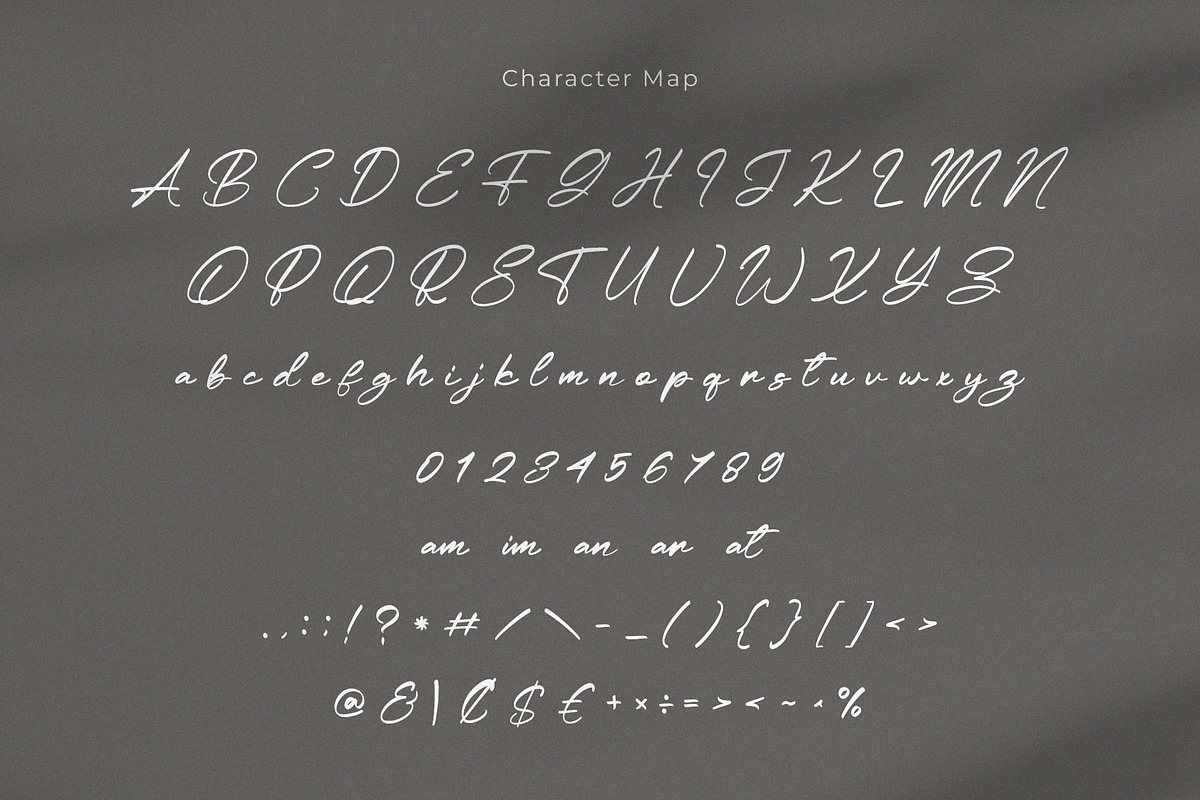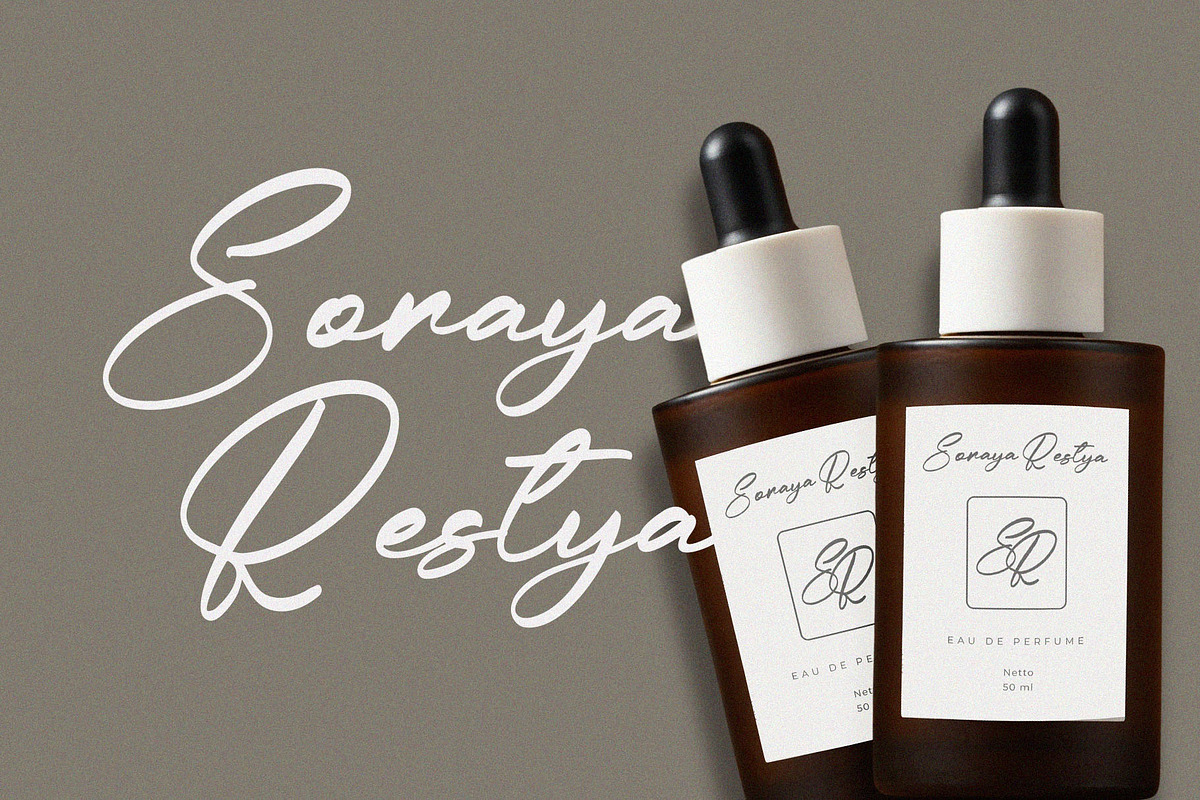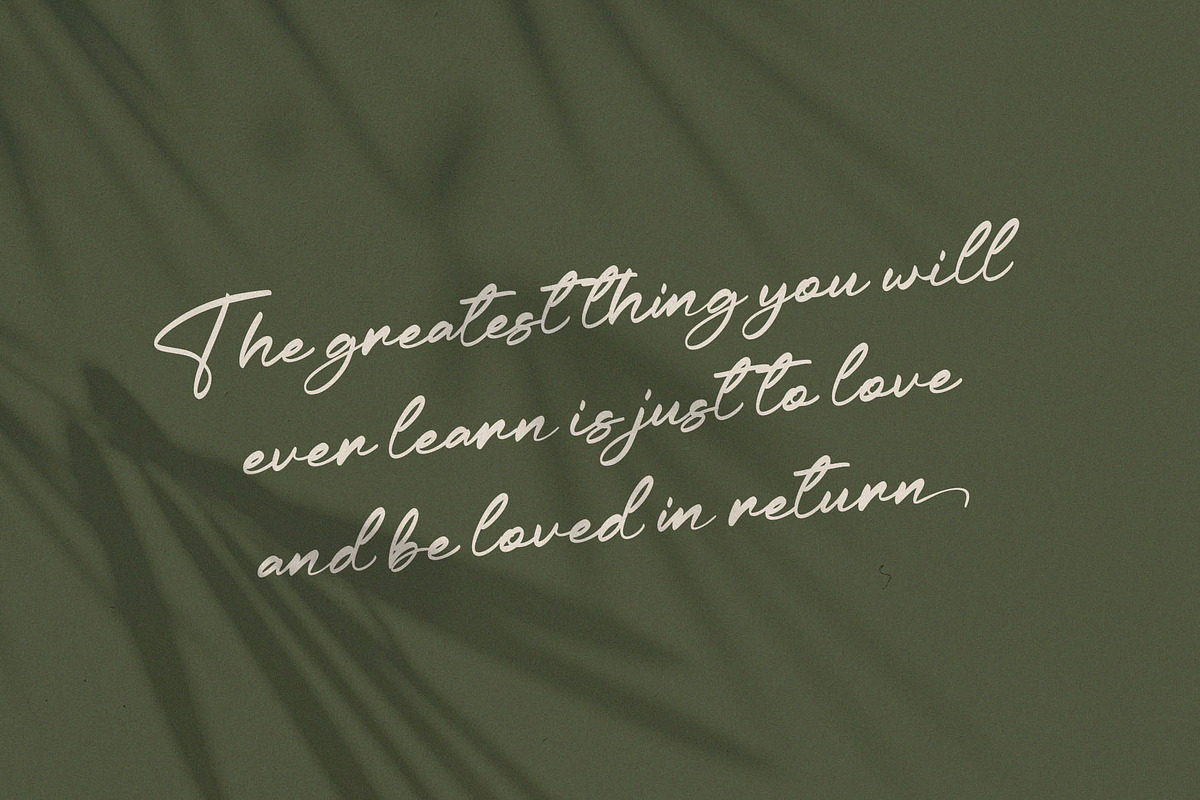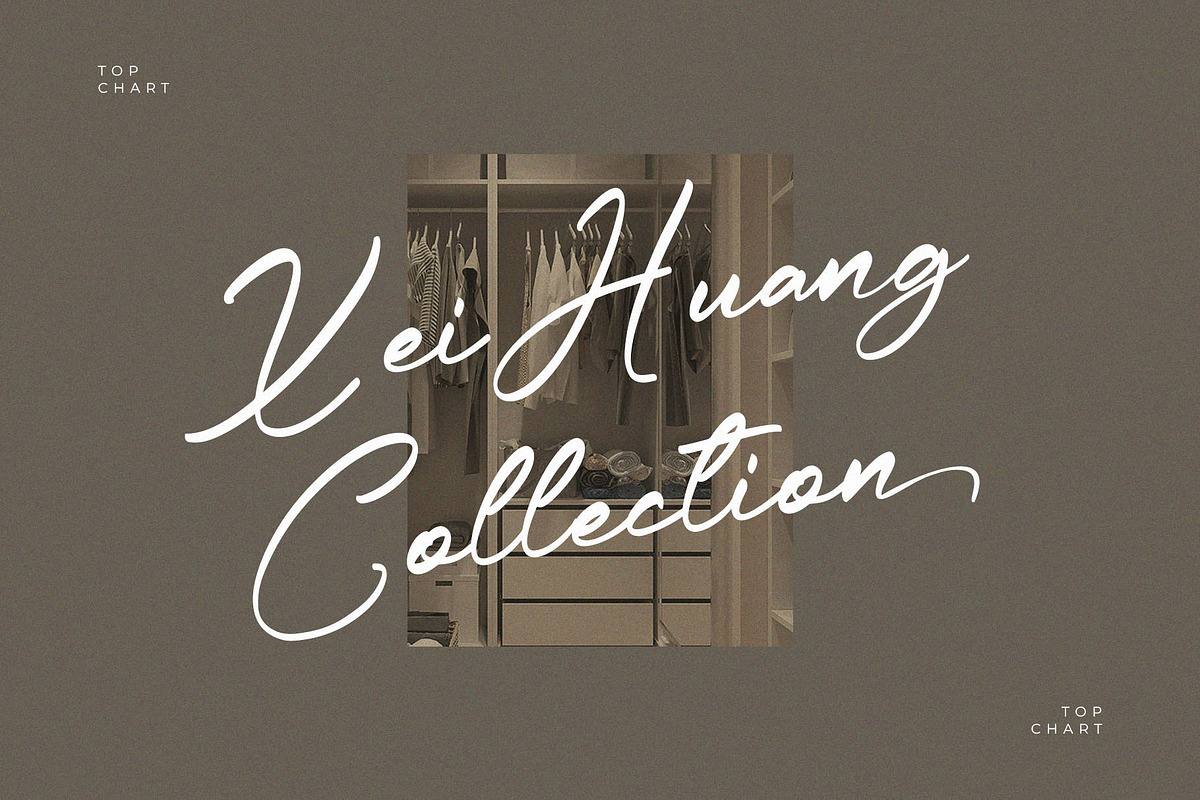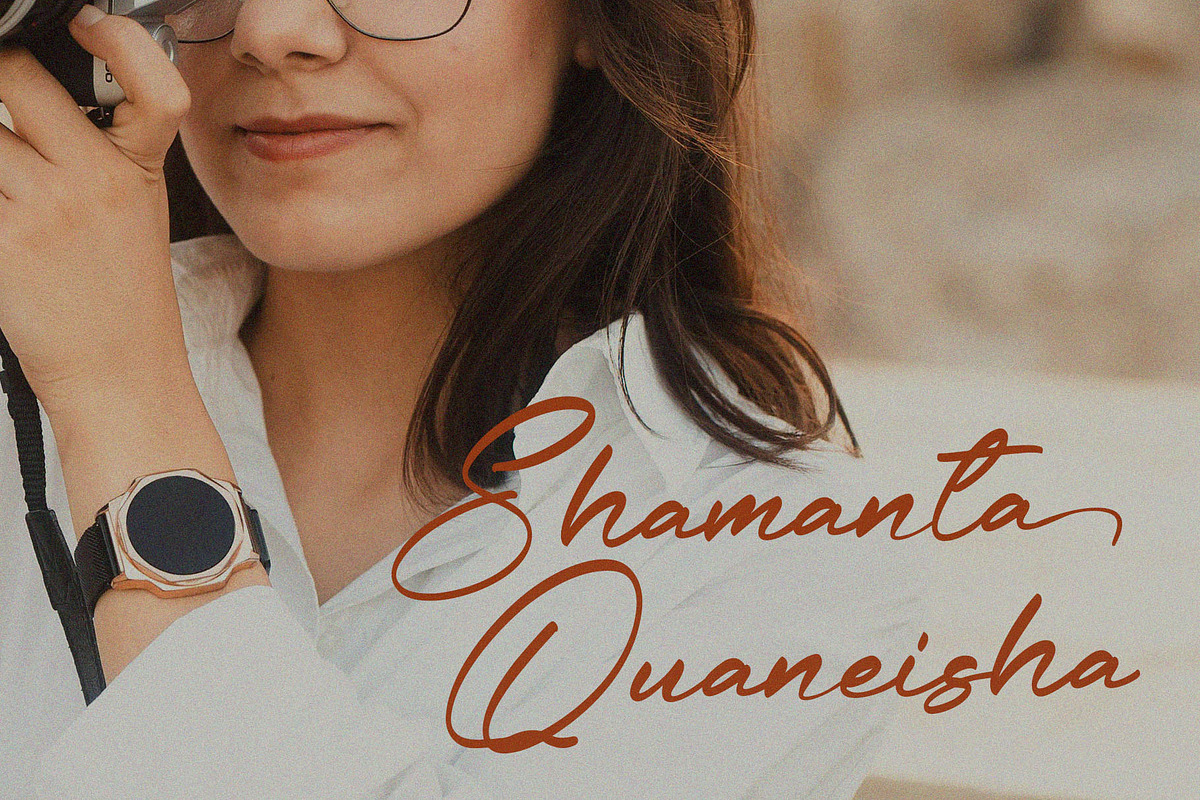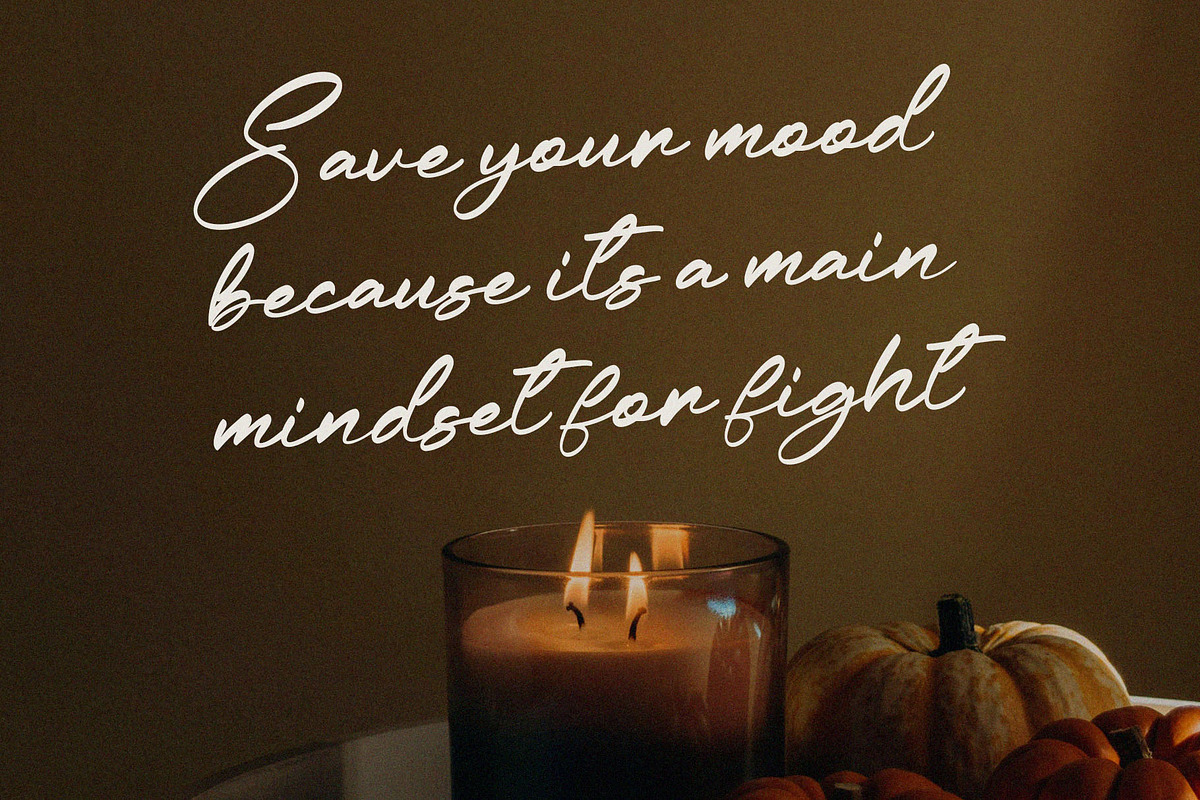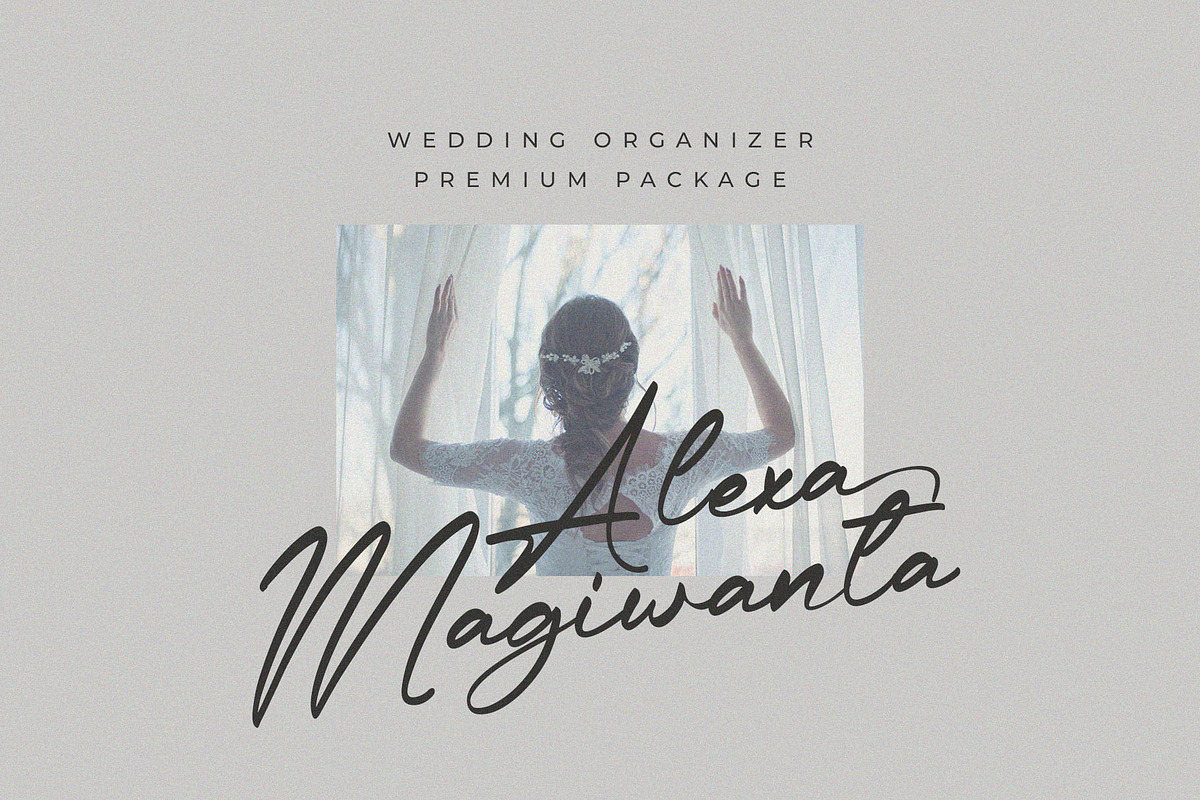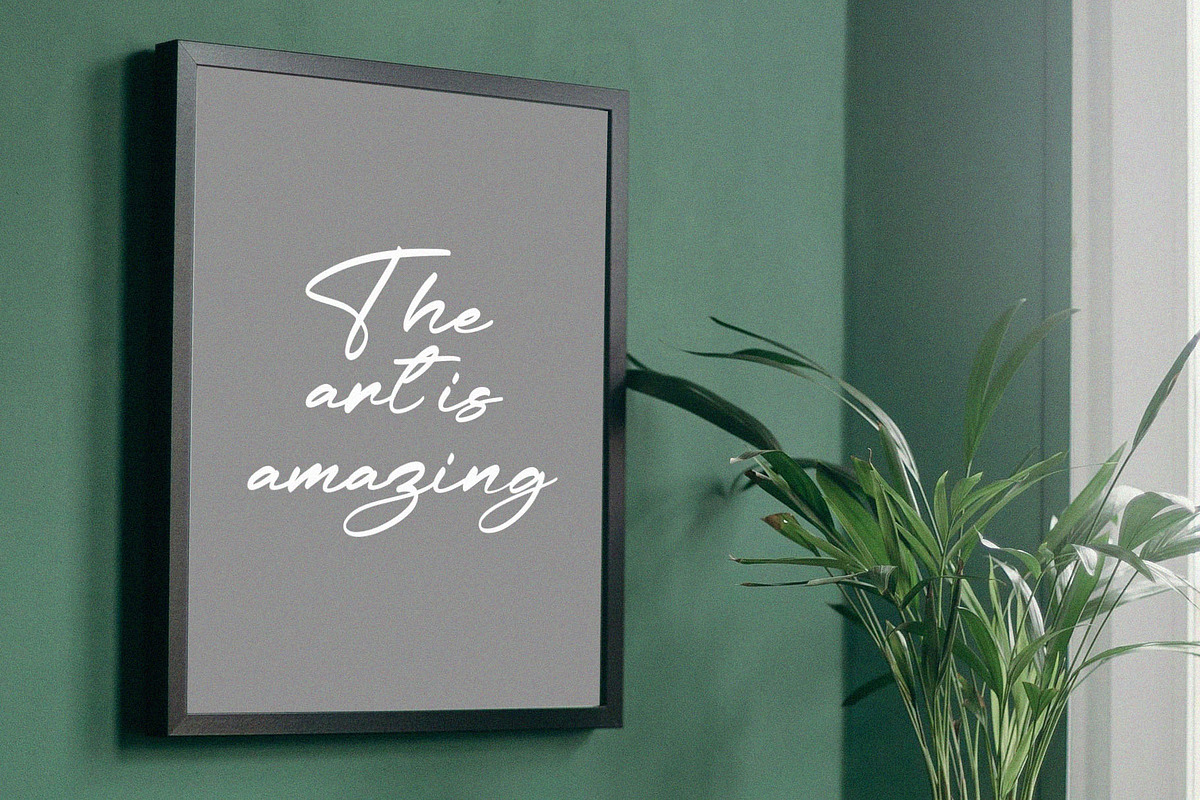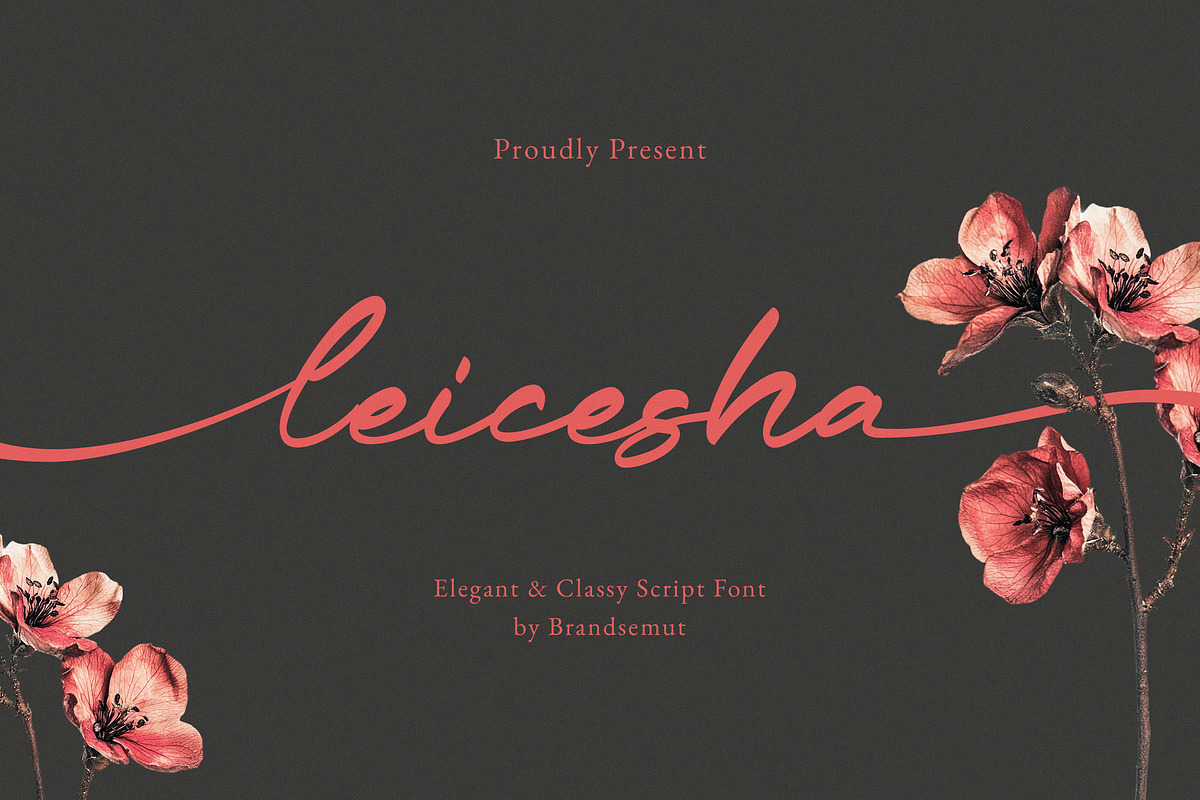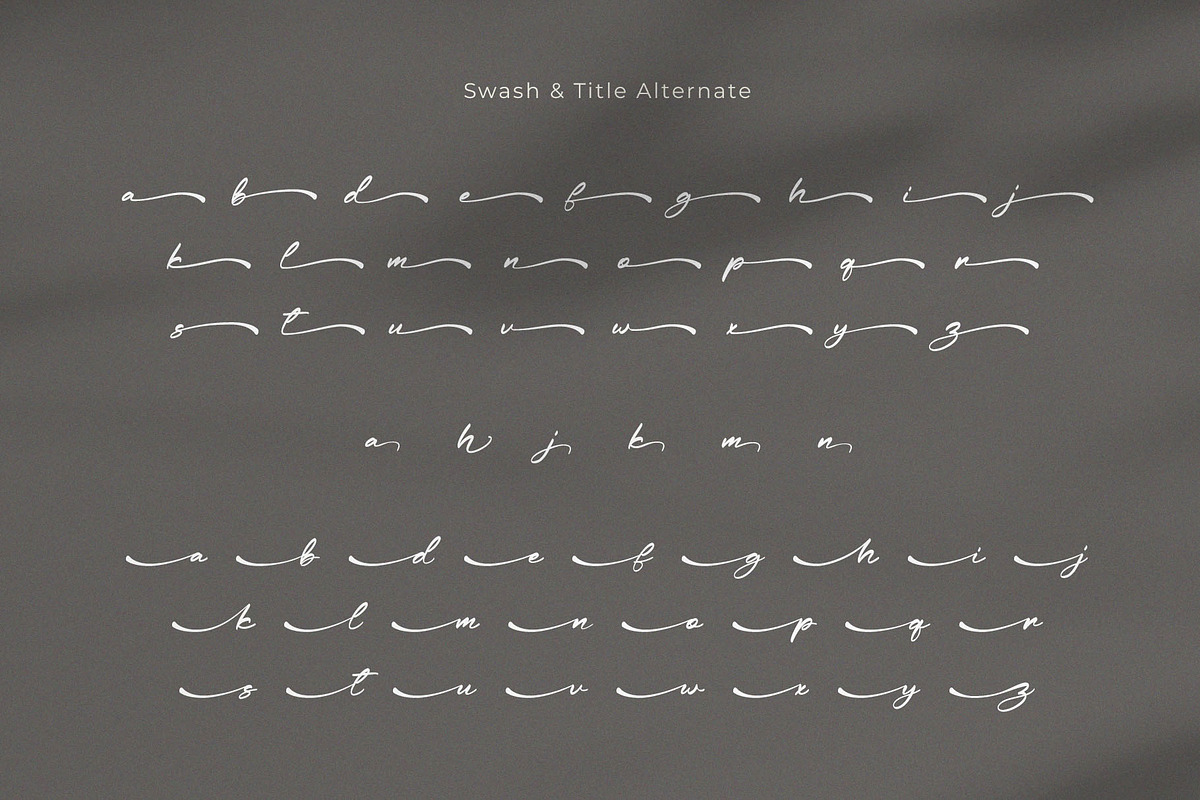
Leicesha – Elegant & Classy Script
Introducing the new Leicesha Elegant & Classy Script Font is a luxury and stylish handwritten script, that you can use to perfect your design. You will get full set of lowercase and uppercase letters, multilingual, numerals and punctuation.